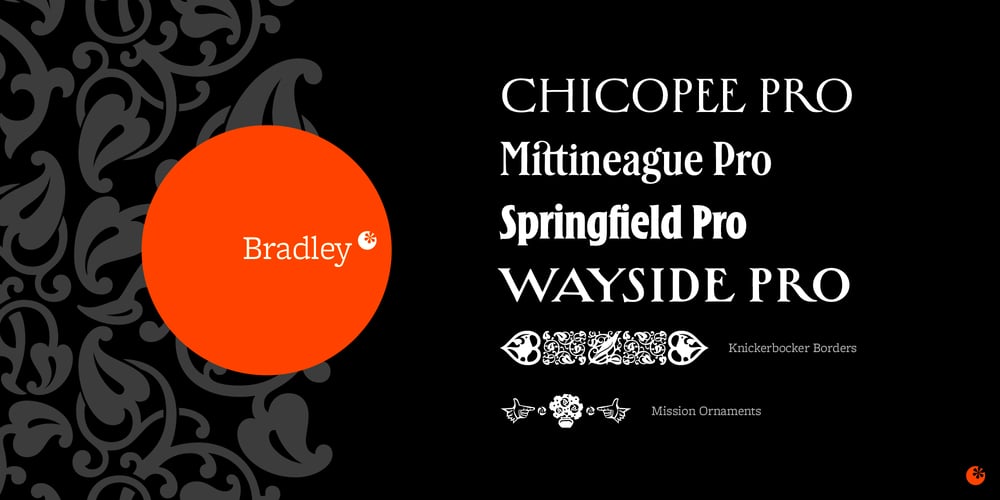
Bradley Font Family was designed by Charles Gibbons and published by Oddsorts. Bradley contains 6 styles and family package options. Oddsorts’ Bradley family celebrates the artistry of Will H. Bradley, whose graphic work continues to delight after more than a century.We’ve painstakingly expanded Bradley’s original handful of characters into a multiscript system supporting up to 560 languages, including polytonic Greek and extended Cyrillic and localizations for Azerbaijani, Bulgarian, Polish, Romanian, Serbian, and Turkish. Mittineague and Springfield also support the International Phonetic Alphabet and mark positioning for true international reach.The fonts interpret Bradley’s lively forms and spacing through imaginative use of OpenType features. In fact, Wayside and Chicopee contain up to seven variations for every letter from which the fonts automatically choose the shape best suited to its location.Top that off with abundant ligatures, contextual forms, small capitals, and figure styles — plus two fonts of borders and ornaments — for a robust display family perfect for packaging, posters, books, and much more.Bradley is a trademark of Charles Gibbons / Oddsorts and may be registered in certain jurisdictions.